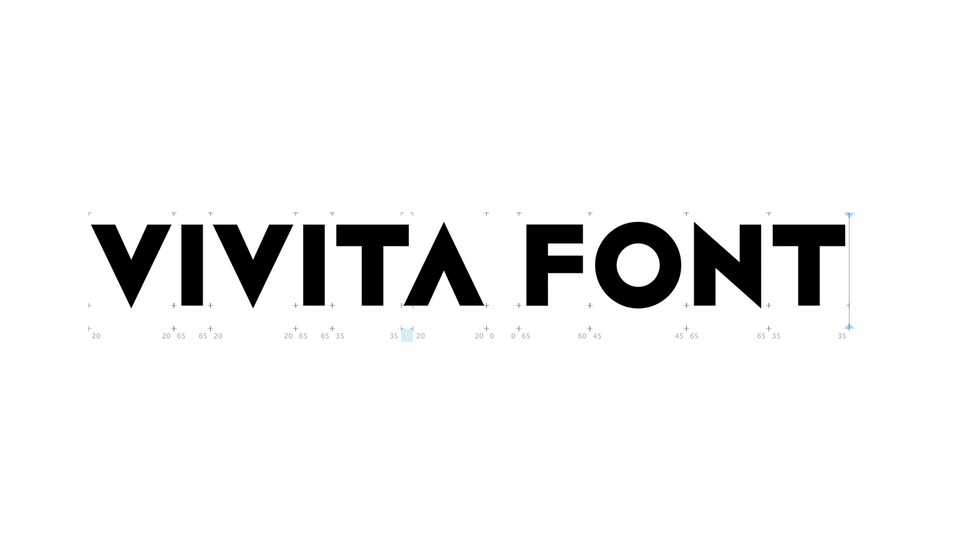
Download VIVITA typeface, a modern geometric display font family in four weight, designed for the brands of VIVITA community and the creativity of children around the world.
Designer: VIVITA Inc.